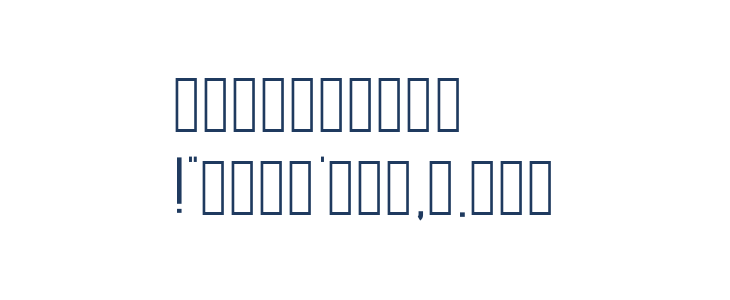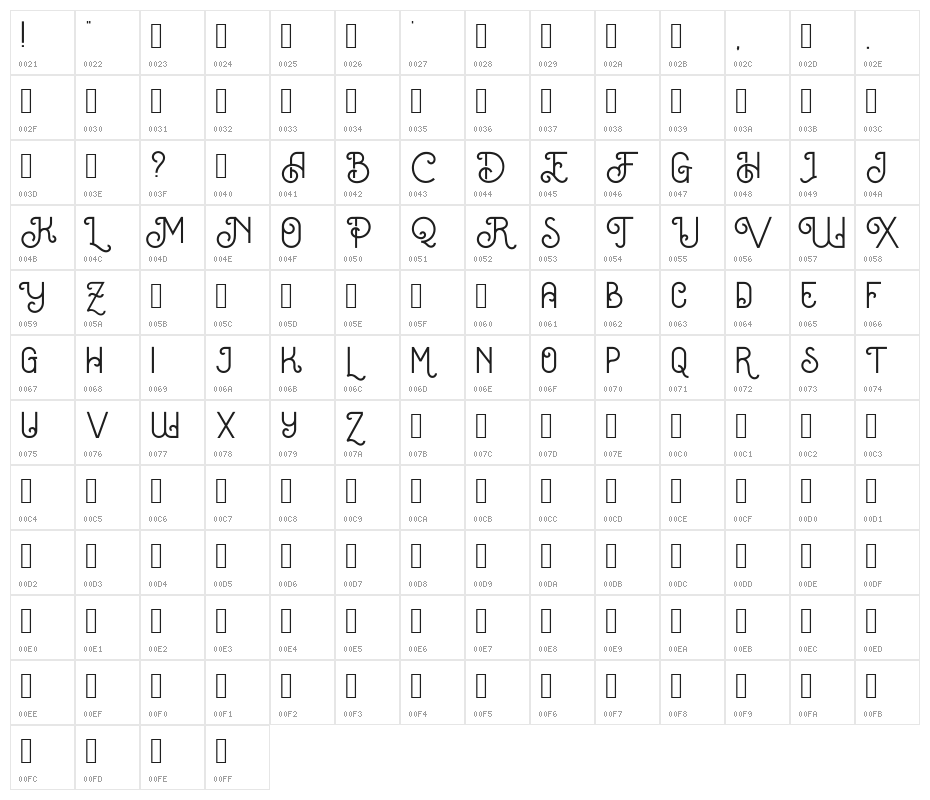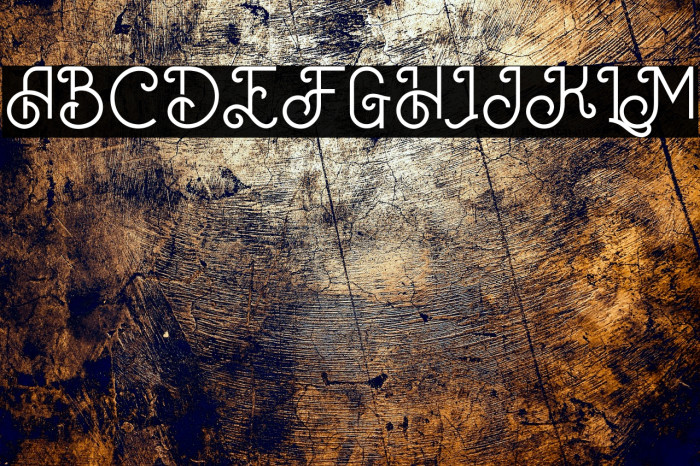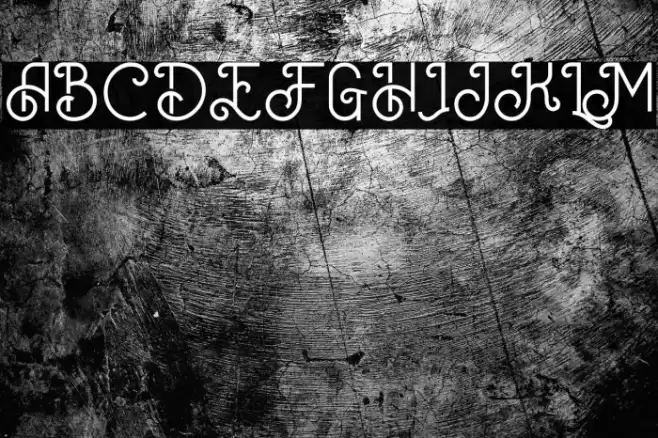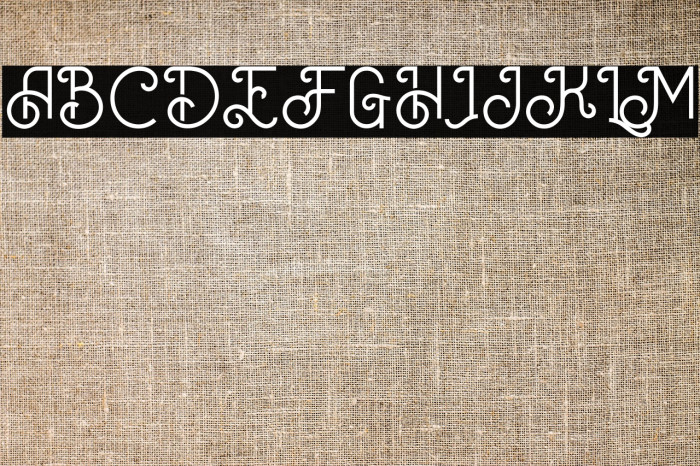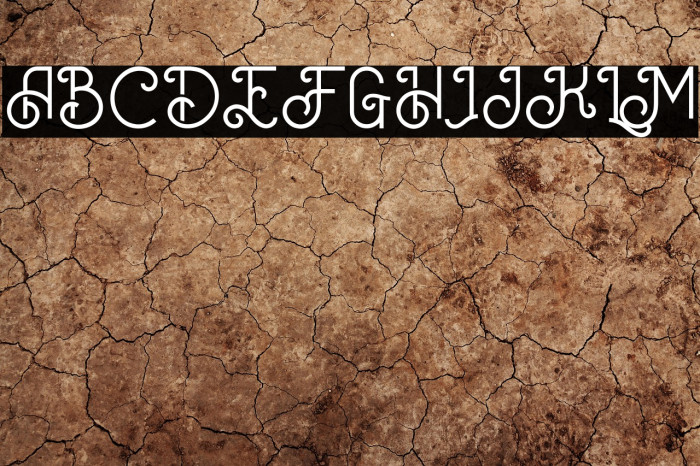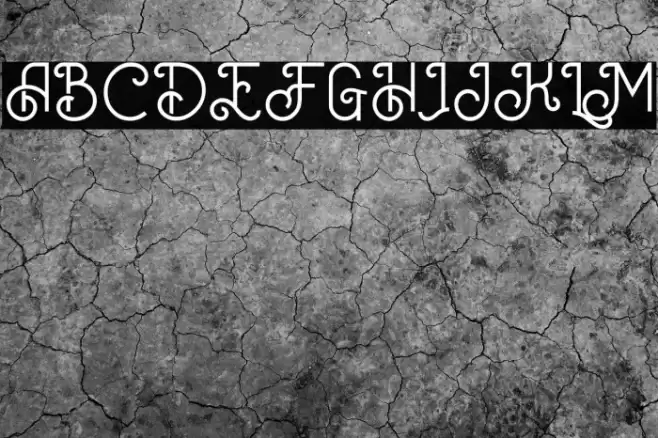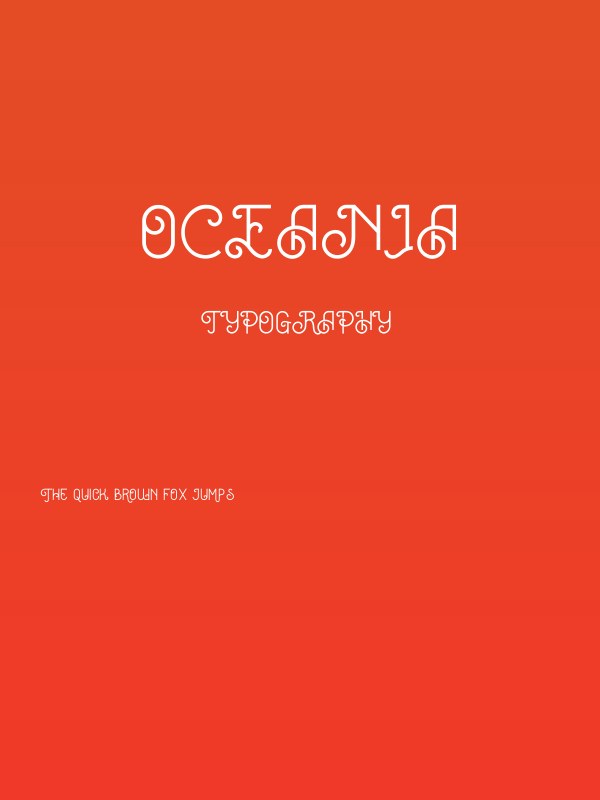
Oceania Font
Oceania Description
This font features a unique blend of decorative and modern elements, characterized by its intricate loops and curls on the uppercase letters. The lowercase letters maintain a simpler, yet complementary style, creating a harmonious balance. The numbers and special characters are designed with a similar flair, ensuring consistency throughout. The overall appearance is elegant and sophisticated, making it suitable for a variety of creative applications. Its distinct style can add a touch of elegance and personality to any project.
| Use Case | Logos, Invitations, Artistic Posters |
| Proposed Projects | Ideal for wedding invitations, branding, logo design, and artistic posters. |